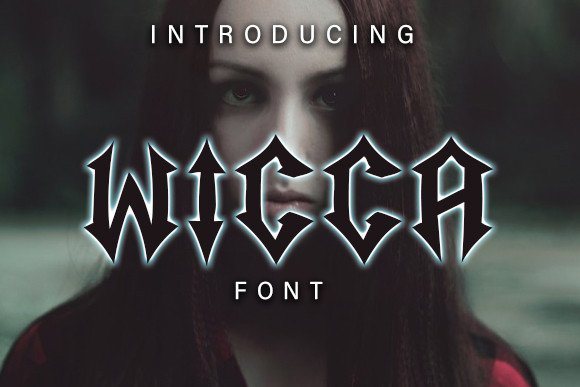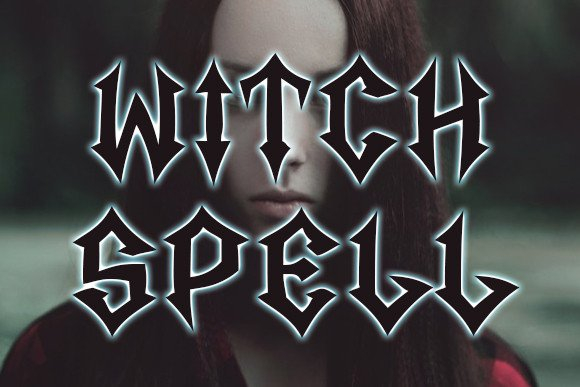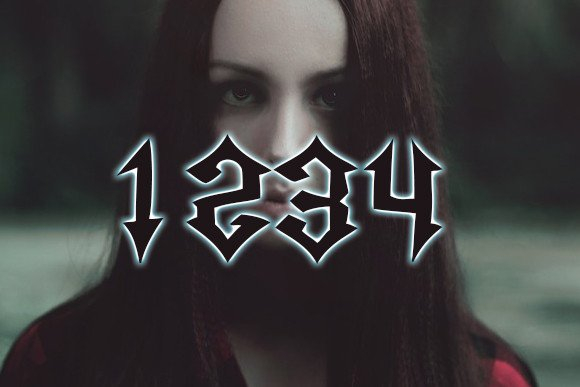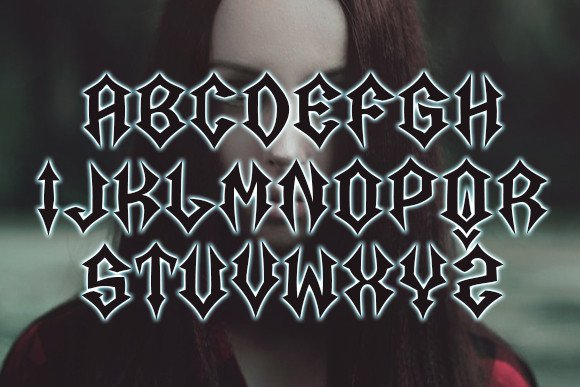
Wicca Font
About Wicca Font
Wicca is an awesome goth-style typeface that will inspire you to create stunning designs.  Use this font on headlines, banners, and posters.